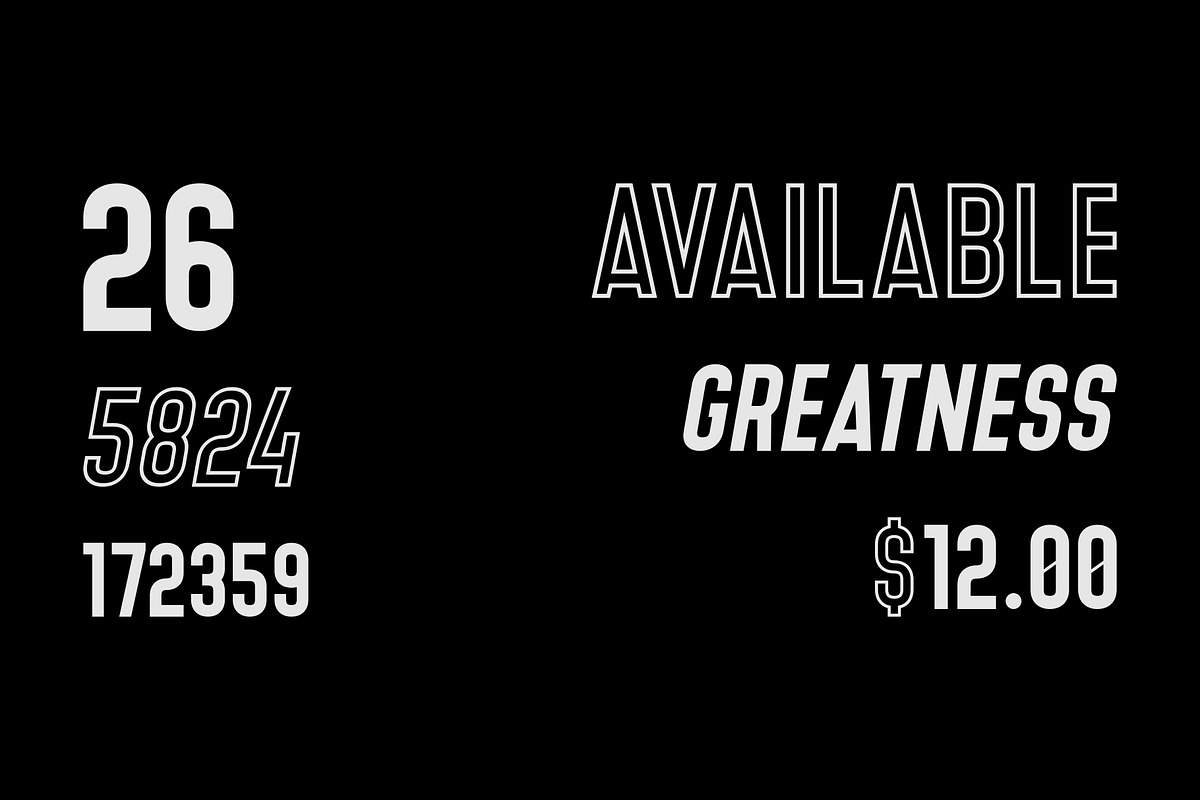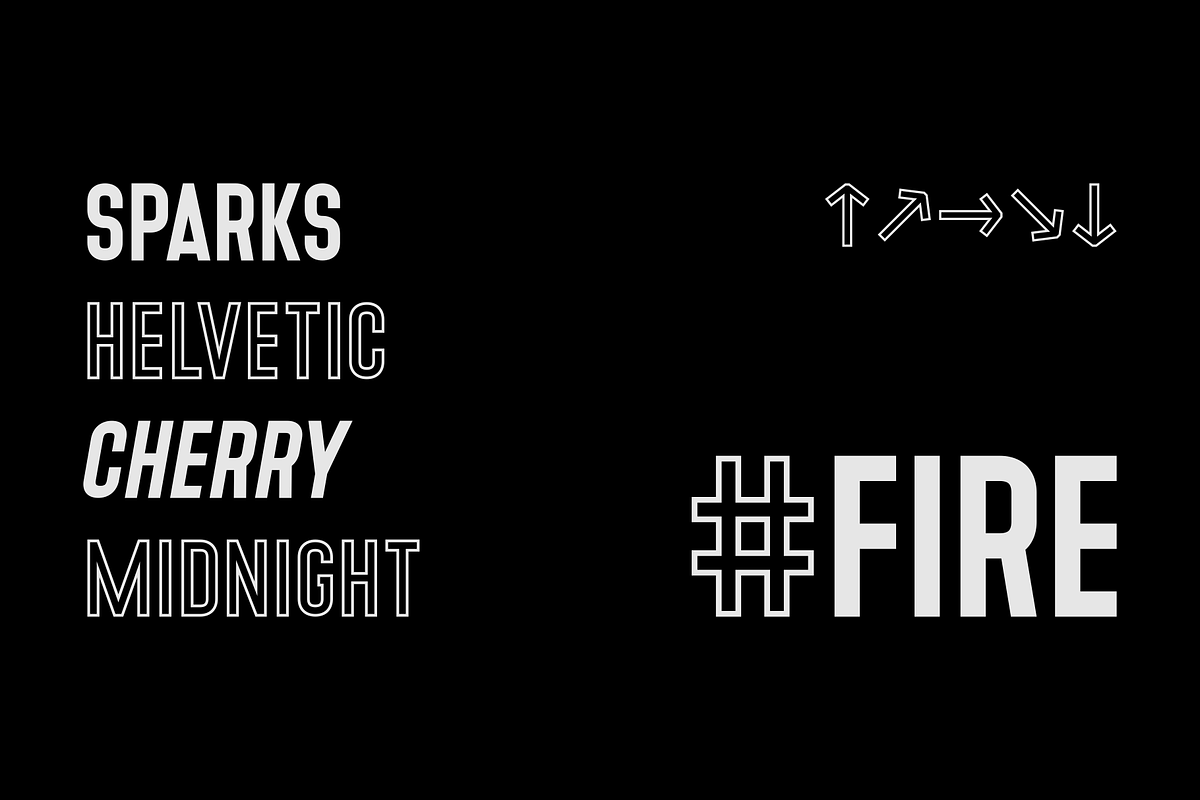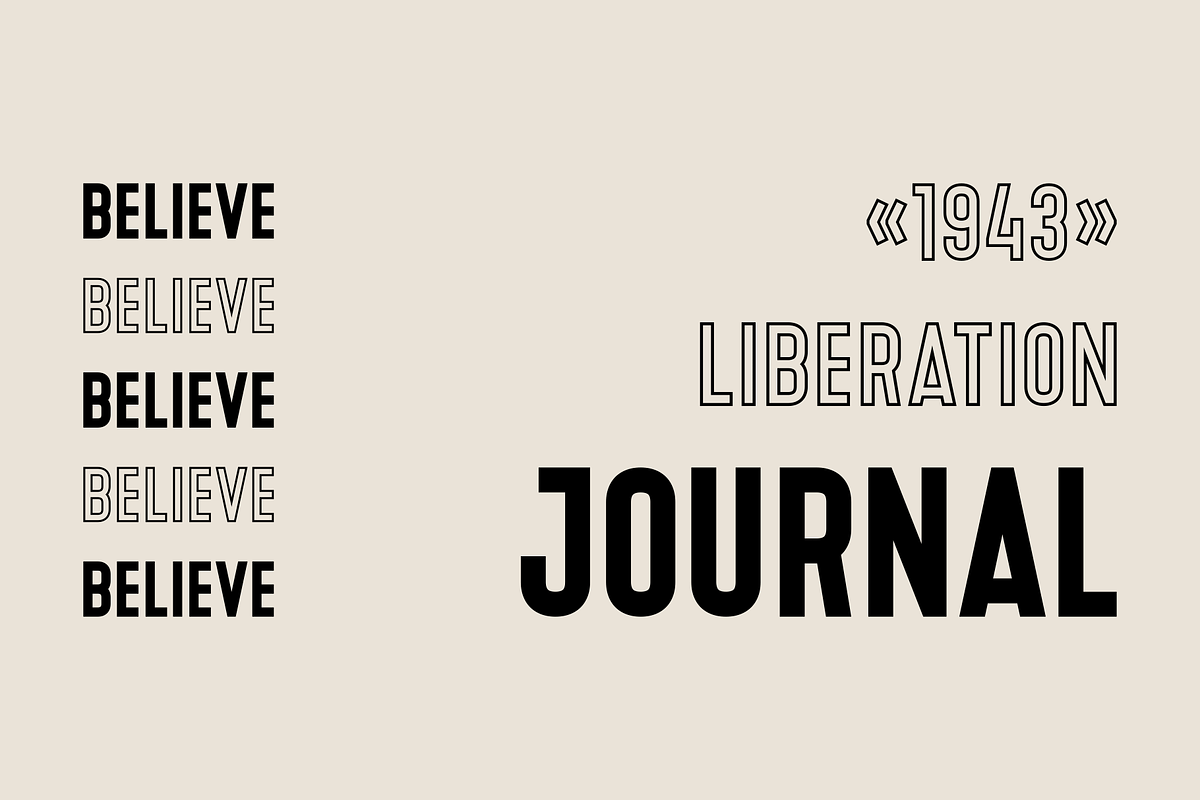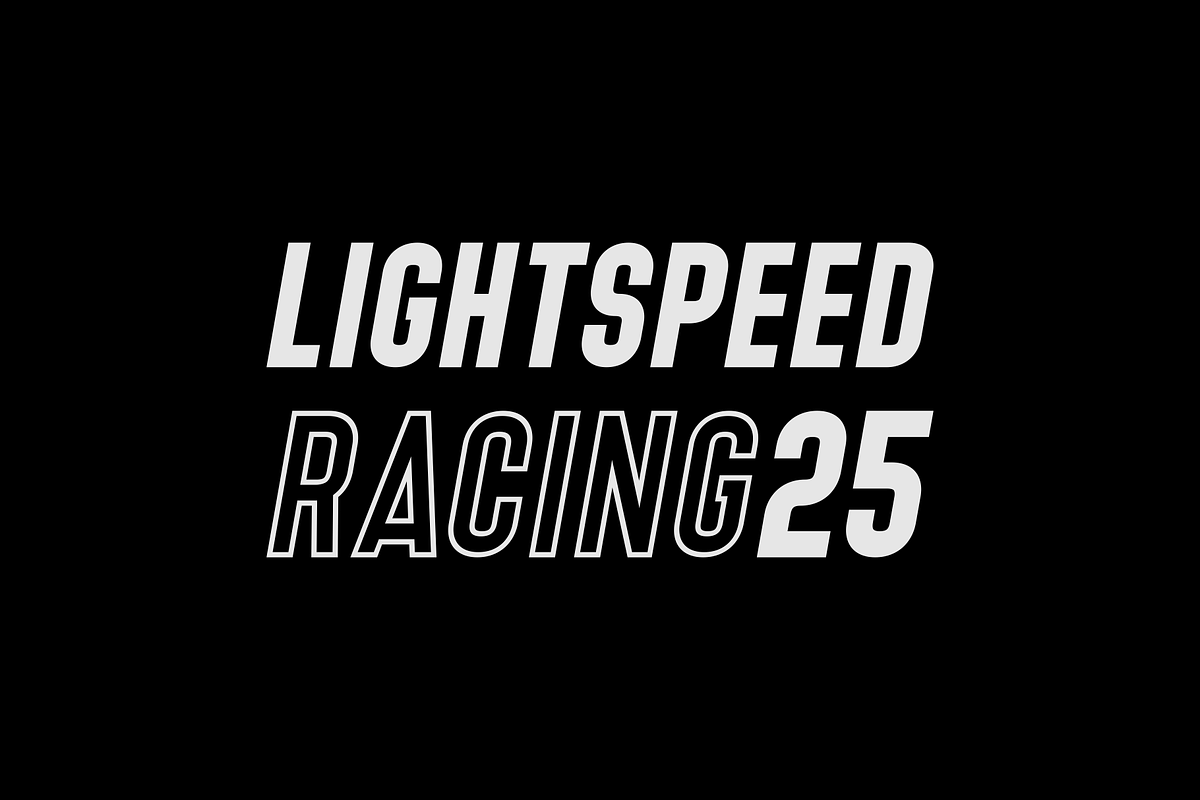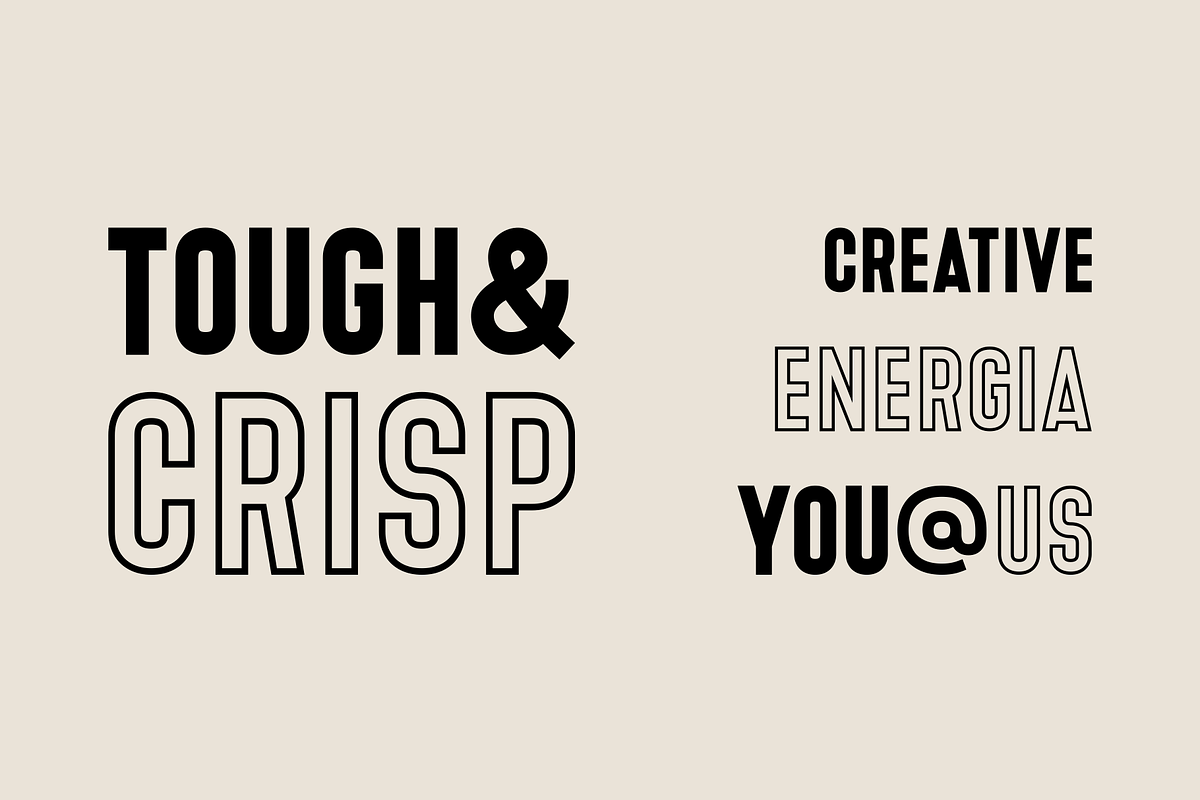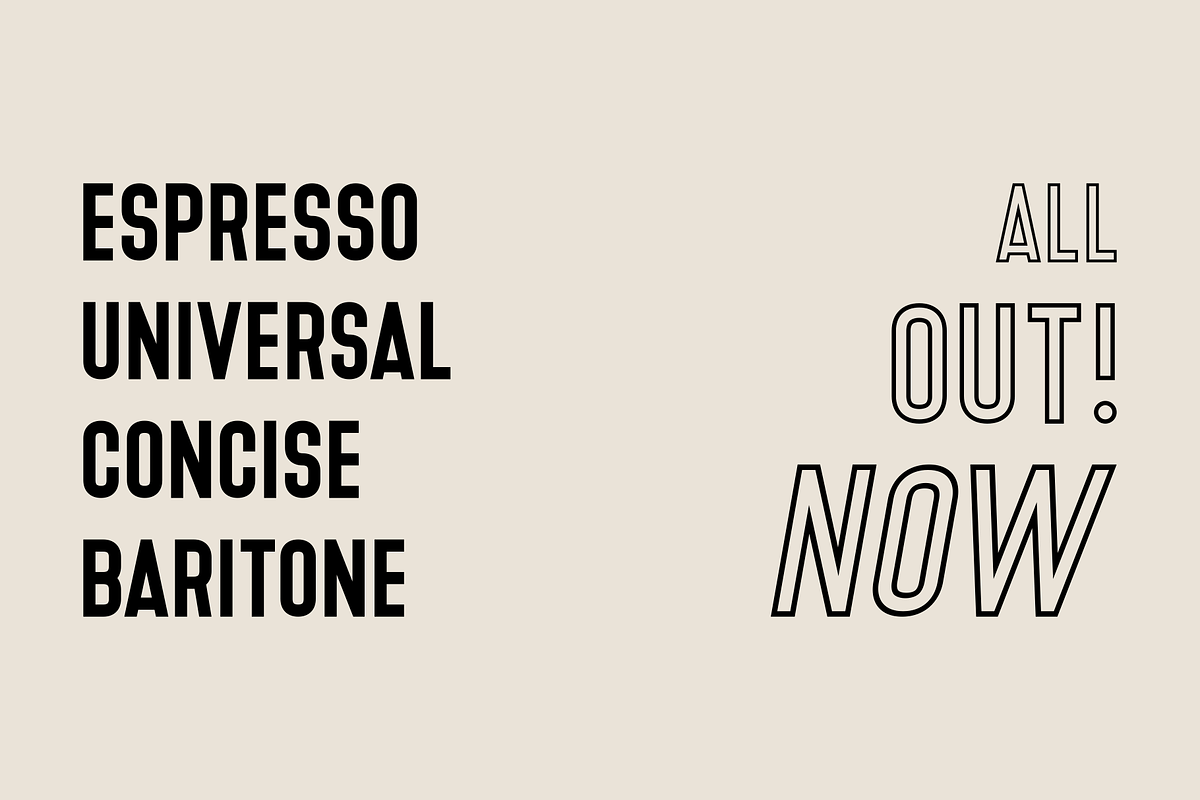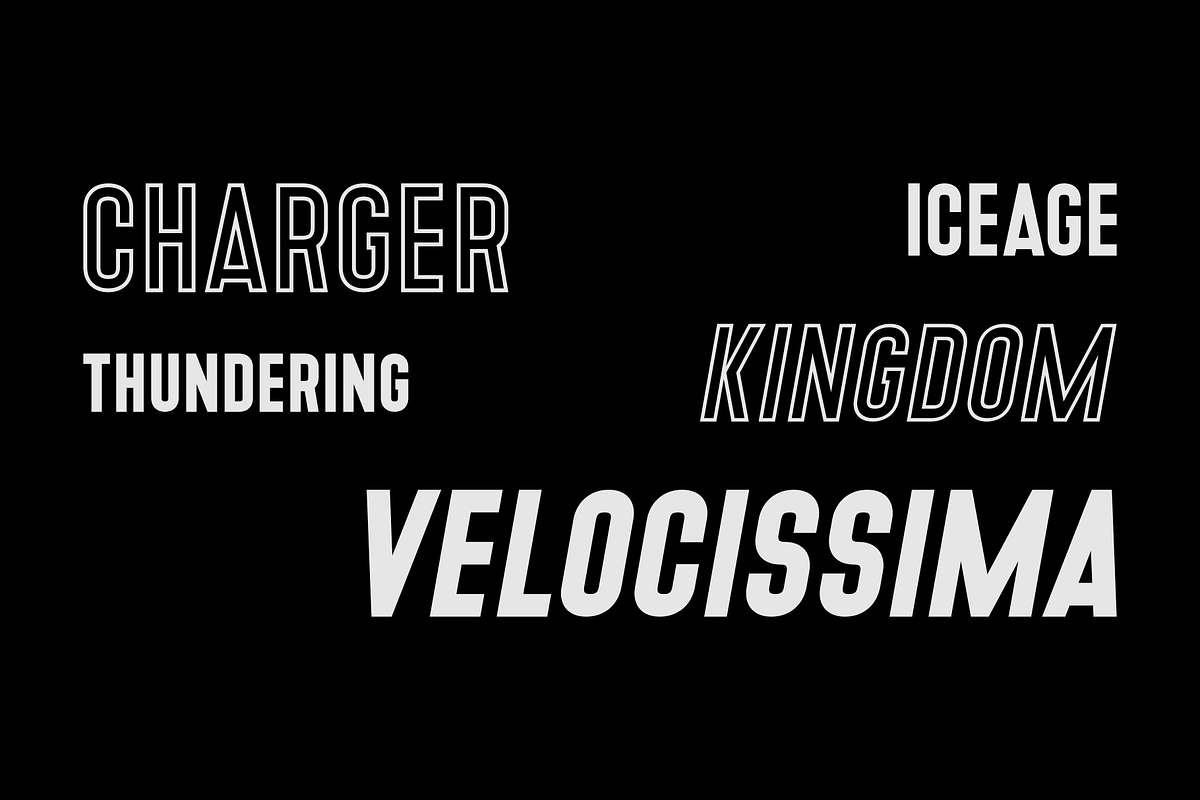
Denso - Font Family
Denso is a font family delivering great force using minimum space.
• 111 Languages • 309 Glyphs • 3 Weights • 9 Styles
Denso - Font Family by Stefano Giliberti fits naturally into Branding, posters, packaging, typography.